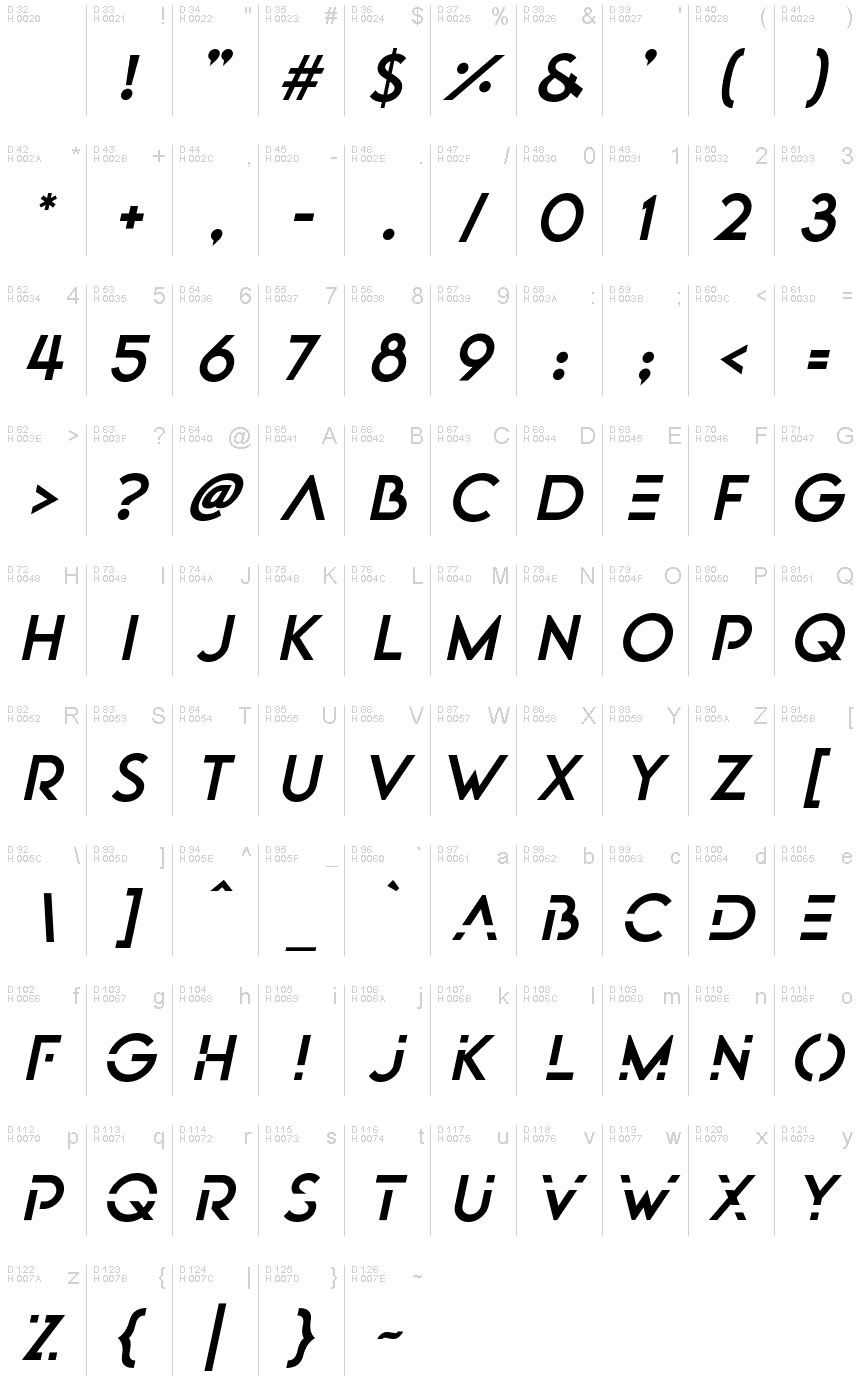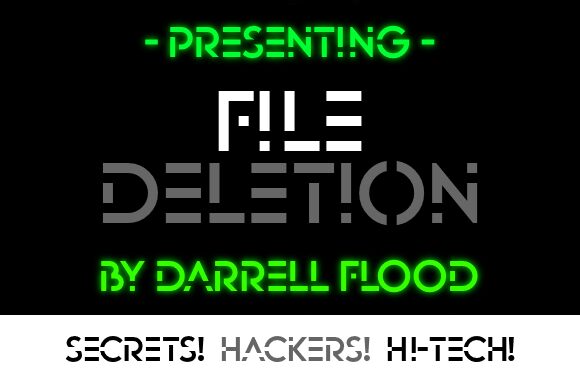
File Deletion Italic
File Deletion Italic, part of the File Deletion font family designed by Hawtpixel, is a striking display typeface that combines futurism and stencil elements. With its sleek and edgy design, this font is perfect for projects that require a futuristic and tech-savvy look.
Use it to create eye-catching logos or headlines for technology companies, video games, or sci-fi movies. Its italic style adds a touch of dynamism and energy to any design, making it suitable for projects that demand a modern and innovative aesthetic.